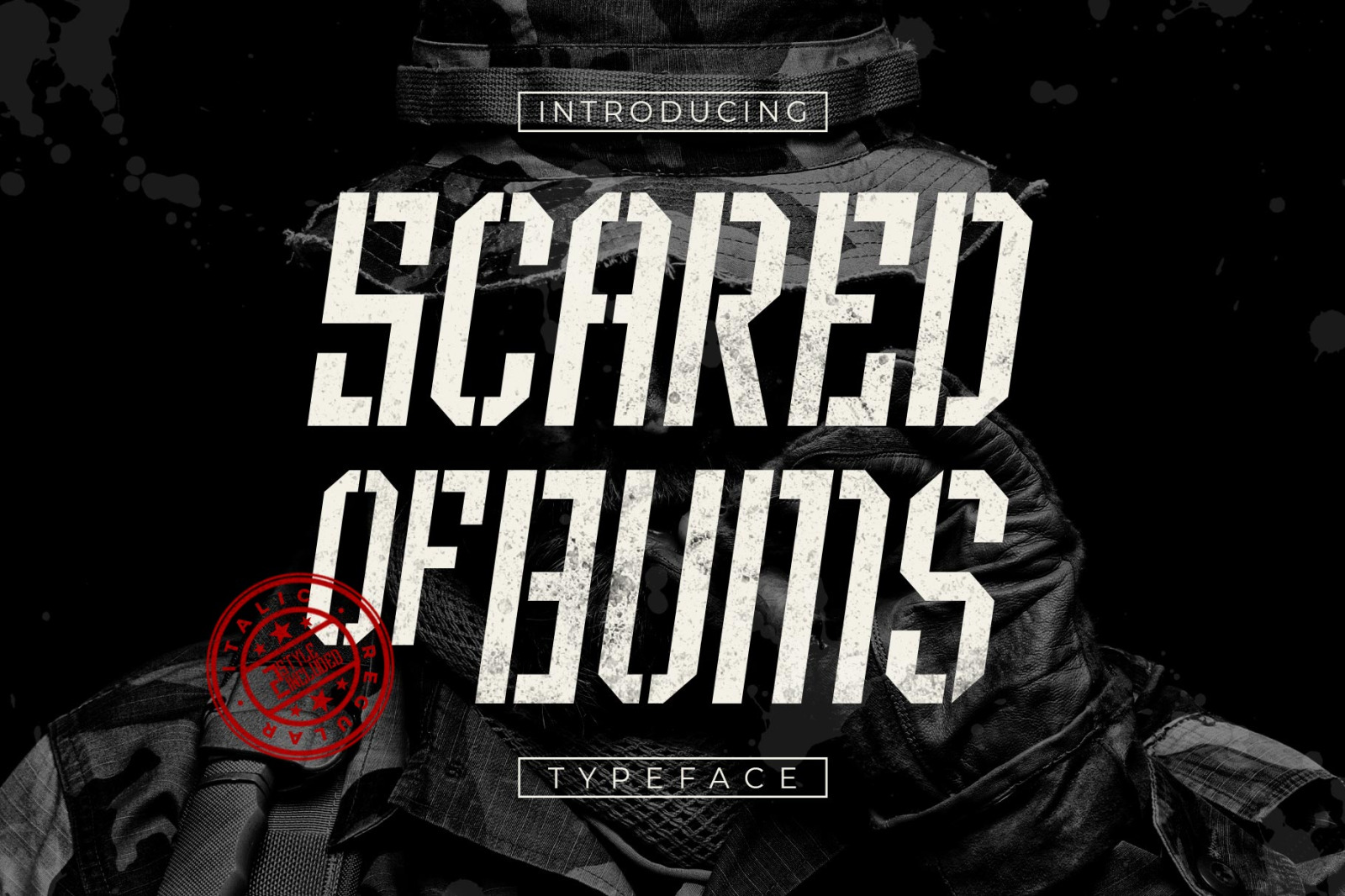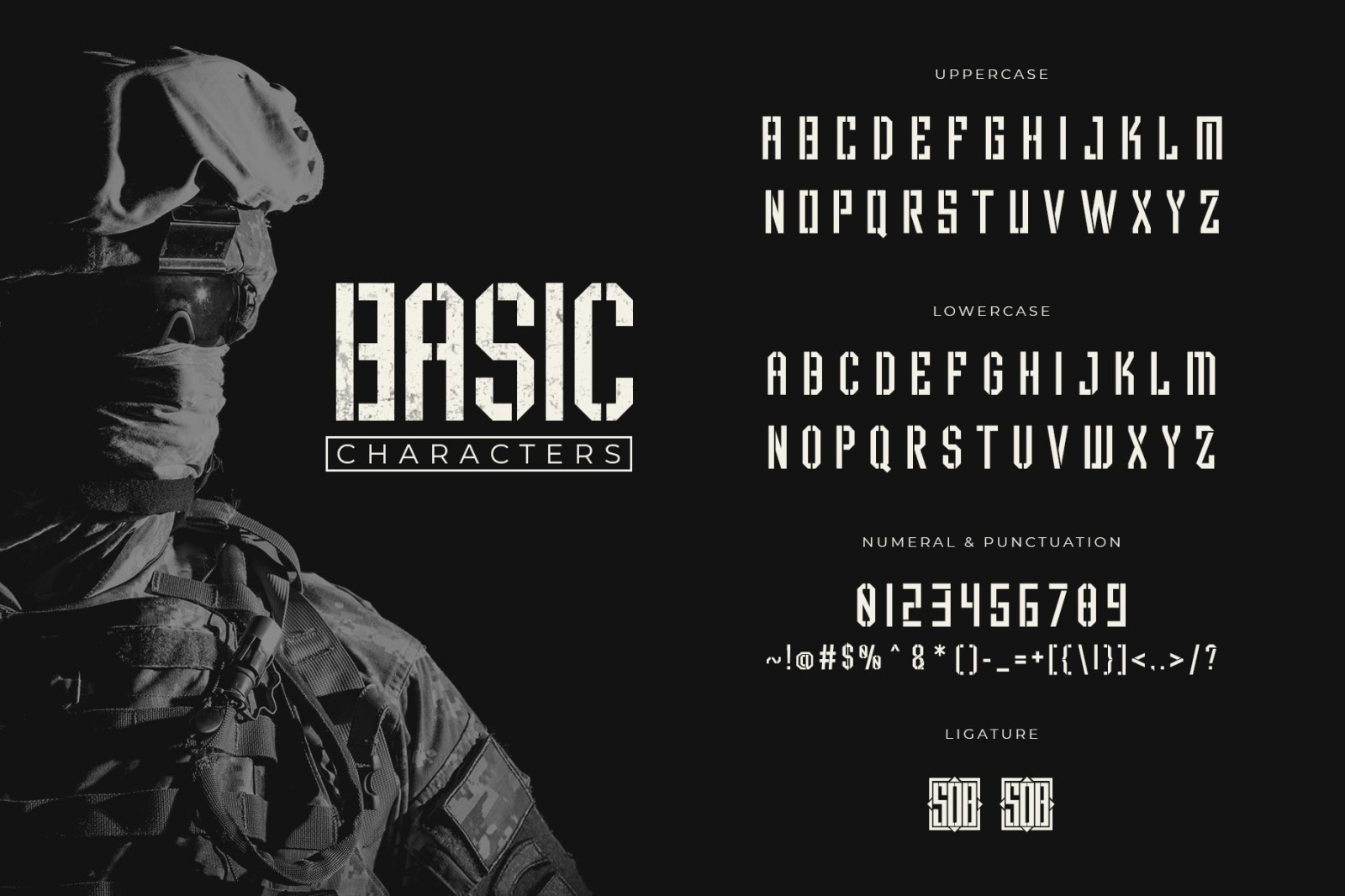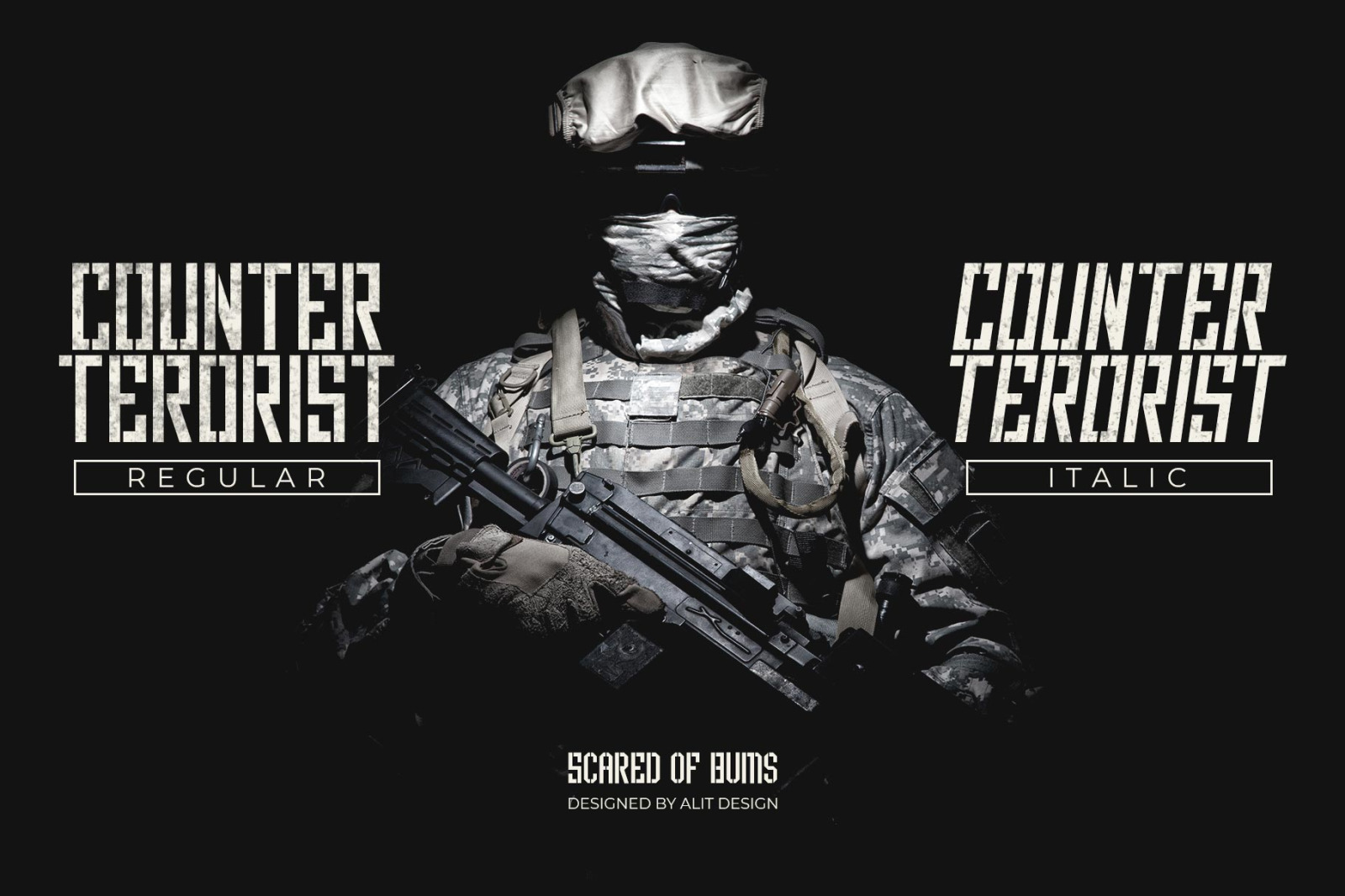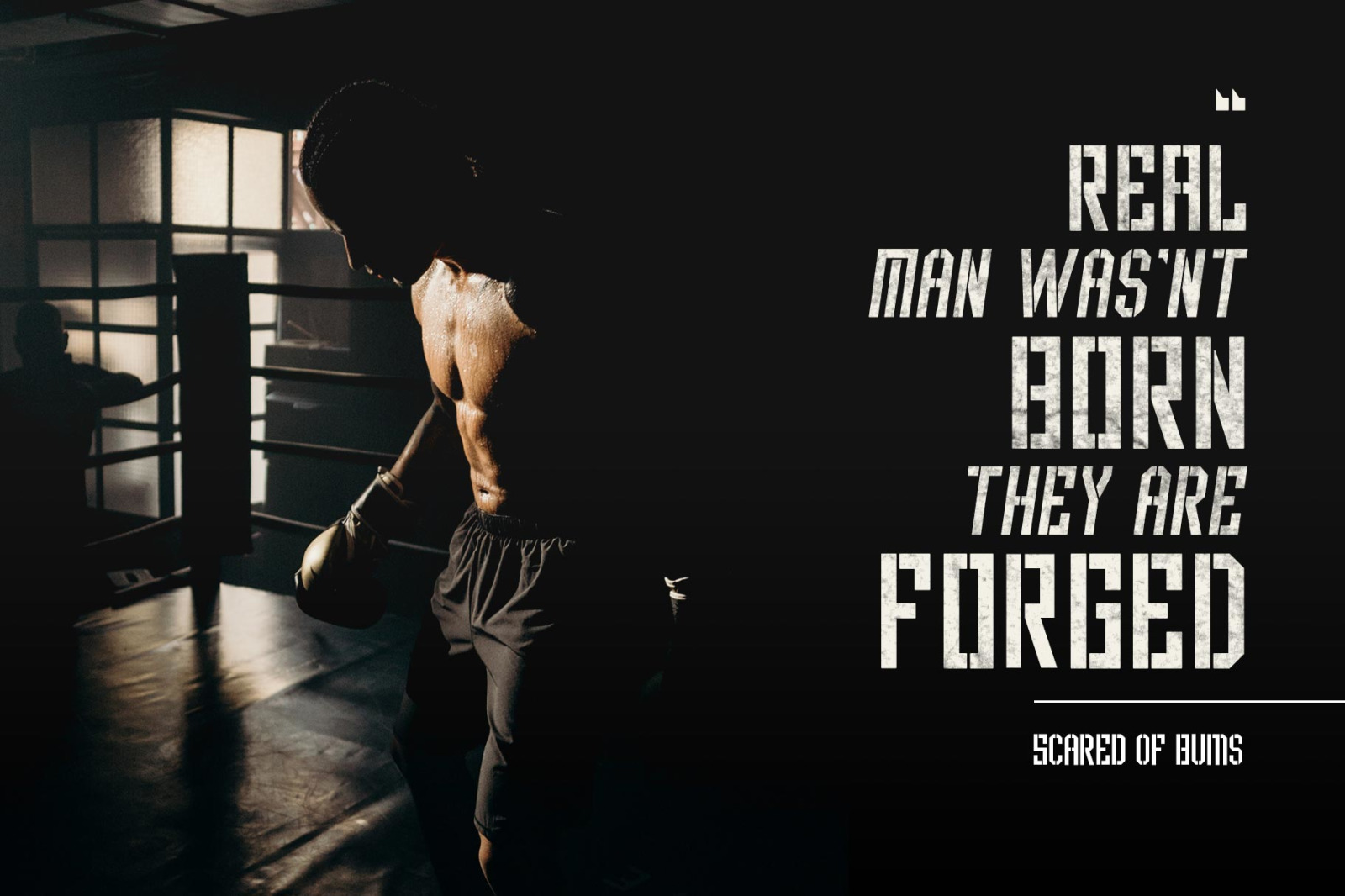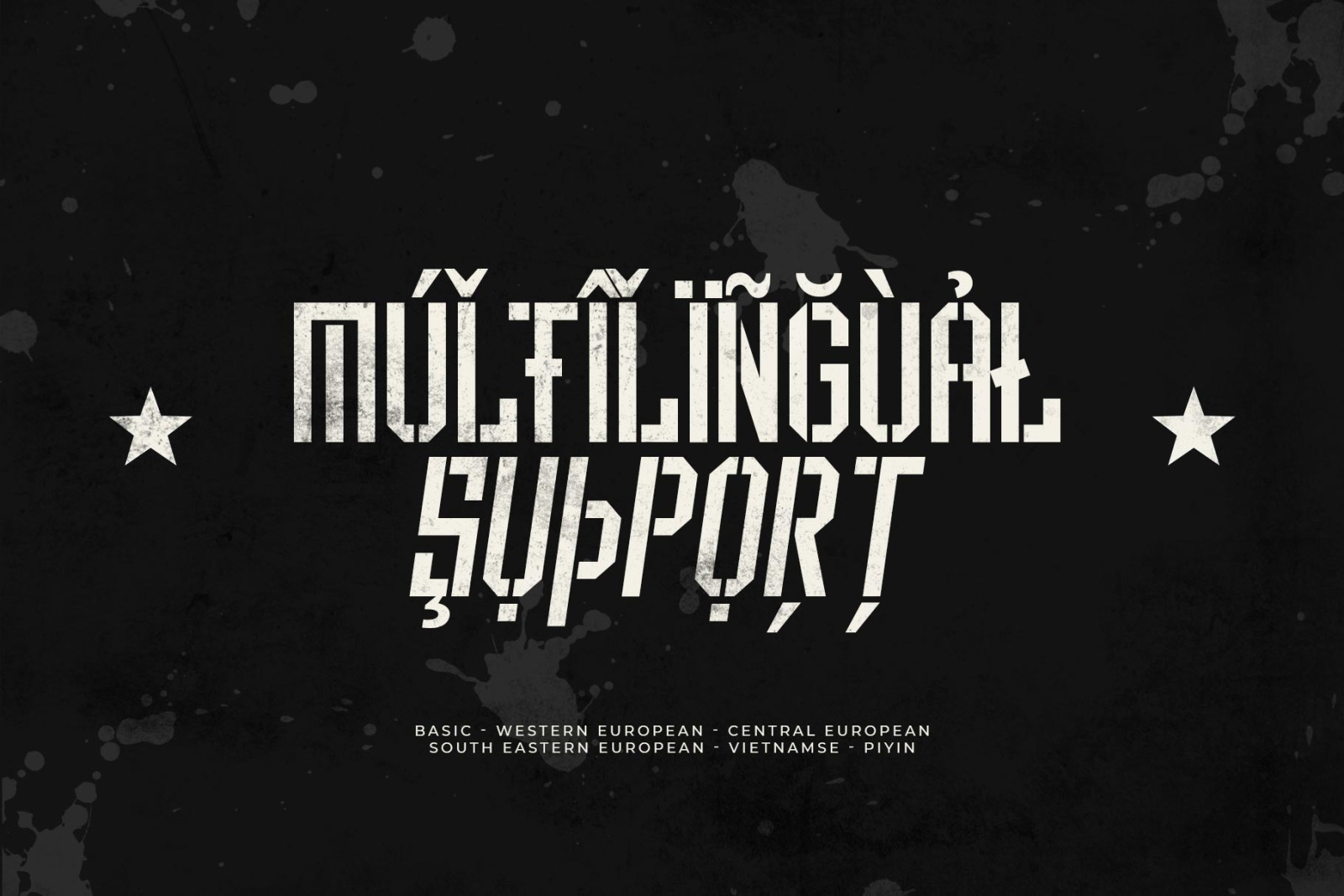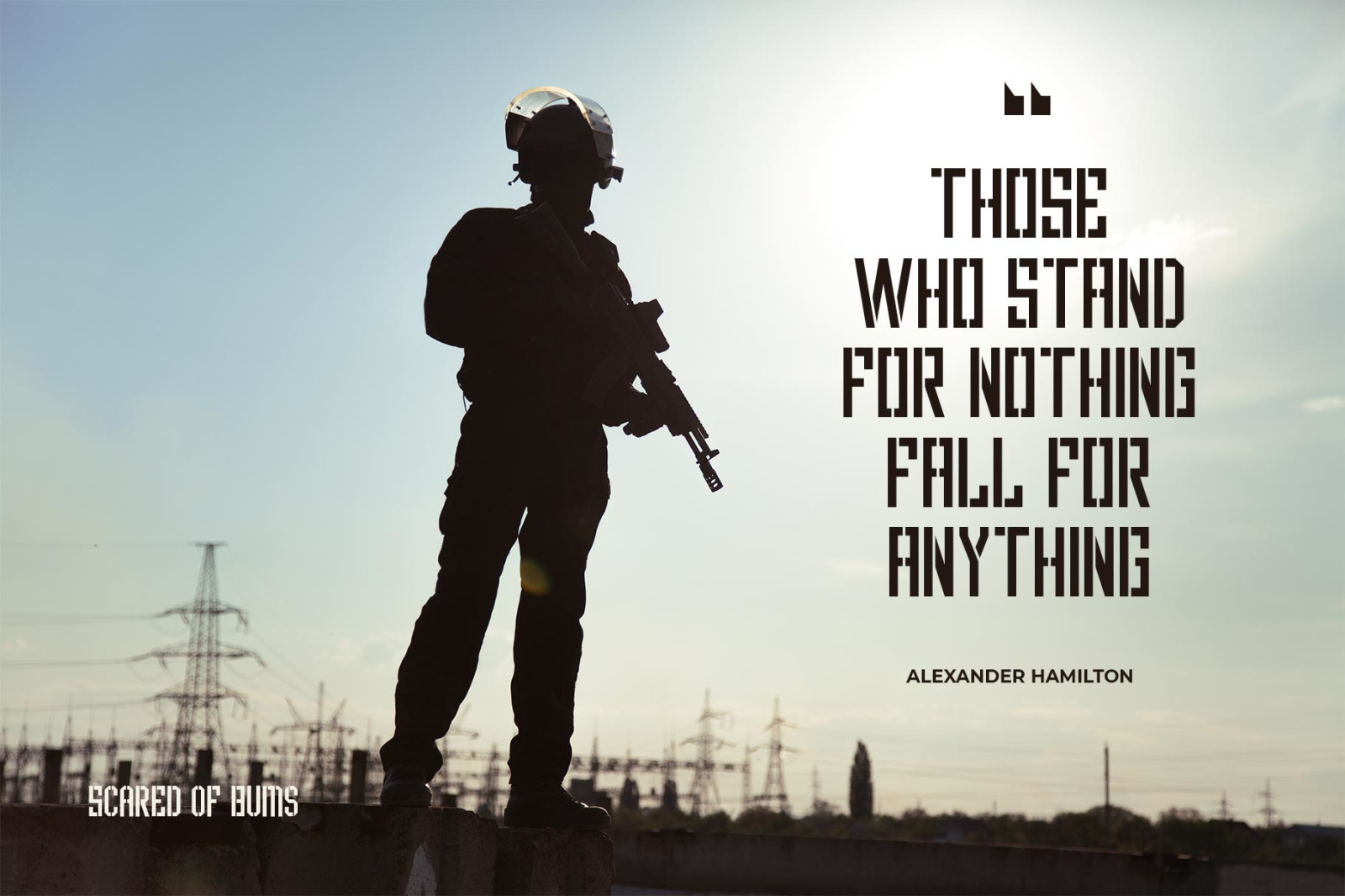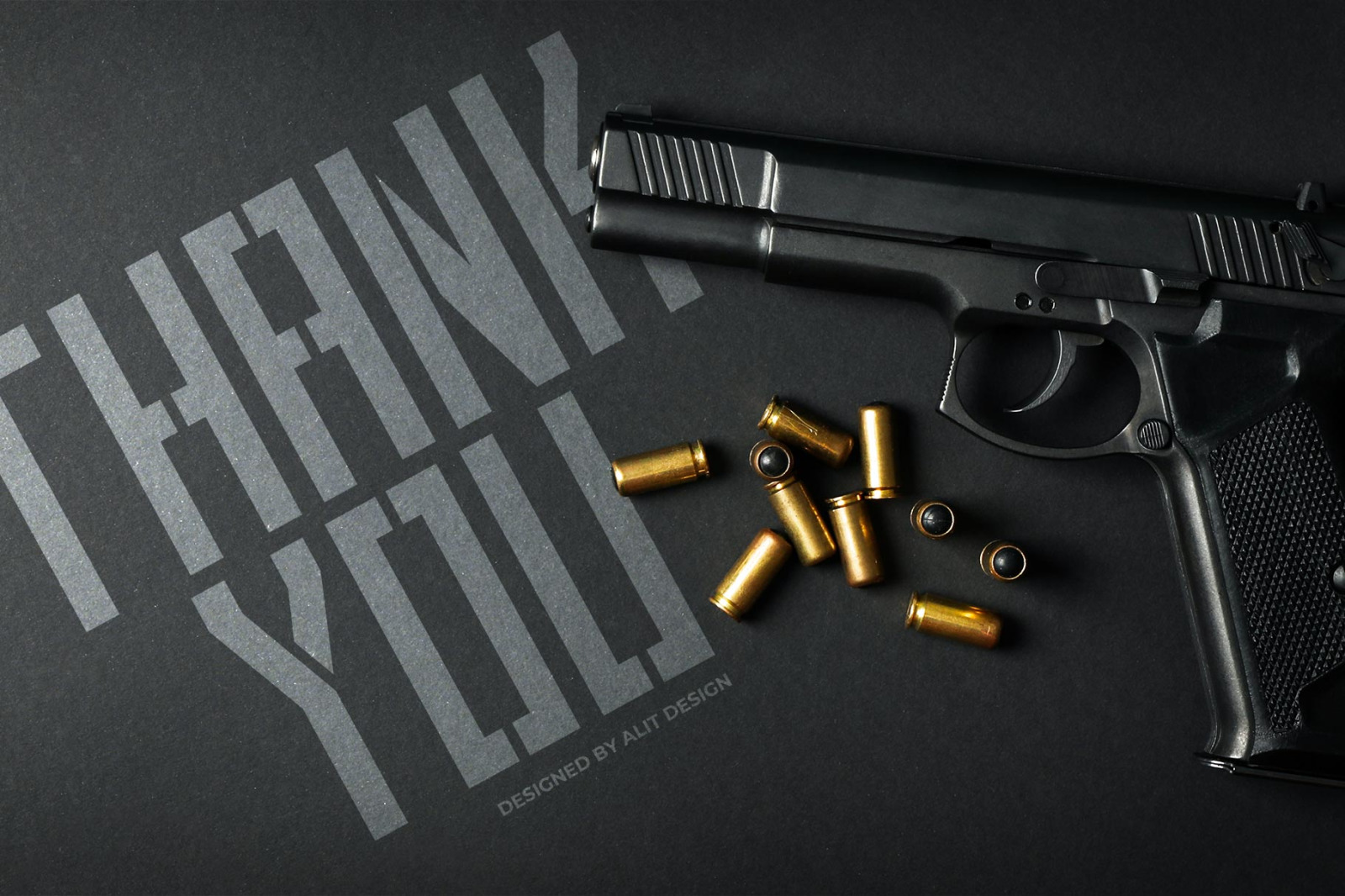
Scared of Bums Font
Scared of Bums Typeface
A very bold military style font made with a stencil theme. This font is perfect for bold, military, gamer themed designs.
A-Z Character Set
Numerals & Punctuations (OpenType Standard)
Stylistic Alternates
Multilingual